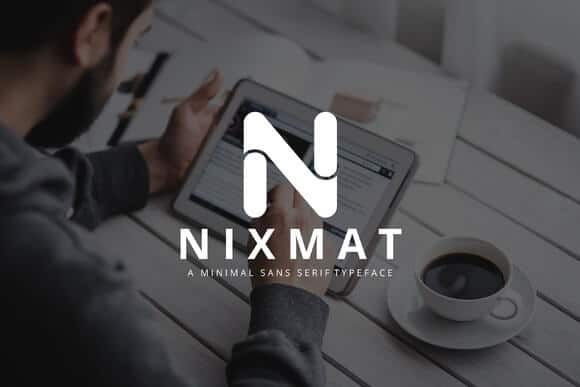
Nixmat | A Brand Identity Font Free Download
Nixmat | A Brand Identity Font is perfect for startup company logos, modern brand identity systems, tech company branding, innovative product packaging, contemporary corporate communications, design agency materials, creative studio signage, progressive marketing campaigns, sleek web interfaces, and forward-thinking business cards.
Nixmat | A Brand Identity Font is exciting because it perfectly embodies the essence of contemporary brand building and modern corporate identity, creating a typeface specifically engineered for memorable brand recognition and versatile identity applications. This font brings brand sophistication and identity excellence to any project, making it ideal for companies and organizations that want to establish strong visual presence, professional credibility, and distinctive brand personality. Its strategic character and brand-focused design create an atmosphere of corporate confidence that resonates with audiences seeking trustworthy and innovative business partnerships.
Nixmat | A Brand Identity Font family includes thin, light, regular, medium, bold, and black weights, each available in roman and italic styles with extensive brand symbols and identity-focused character sets, providing designers with comprehensive tools for creating cohesive brand typography and professional identity systems.
This strategic brand typeface combines contemporary design principles with brand-building functionality, making Nixmat | A Brand Identity Font Free Download an exceptional choice for projects requiring both visual distinction and brand consistency. The font's expertly crafted letterforms feature optimized proportions and brand-focused styling that ensure excellent recognition and memorability across all brand touchpoints and communication channels.
Whether you're developing startup identity systems, designing corporate rebrand materials, or creating comprehensive brand guidelines, Nixmat | A Brand Identity Font delivers unmatched brand authenticity and professional appeal. The font excels in both large-scale environmental branding and detailed business applications where brand consistency and professional credibility create lasting business relationships.
Brand professionals choose Nixmat | A Brand Identity Font for its ability to instantly establish brand authority and corporate professionalism while providing the versatility needed for comprehensive identity systems. The font's brand-focused character makes it particularly effective for consulting firms, technology companies, and innovative business ventures.
Each character demonstrates strategic brand thinking and professional precision, featuring balanced construction and identity-optimized proportions that create typography as memorable and reliable as successful brands and trusted business partnerships.